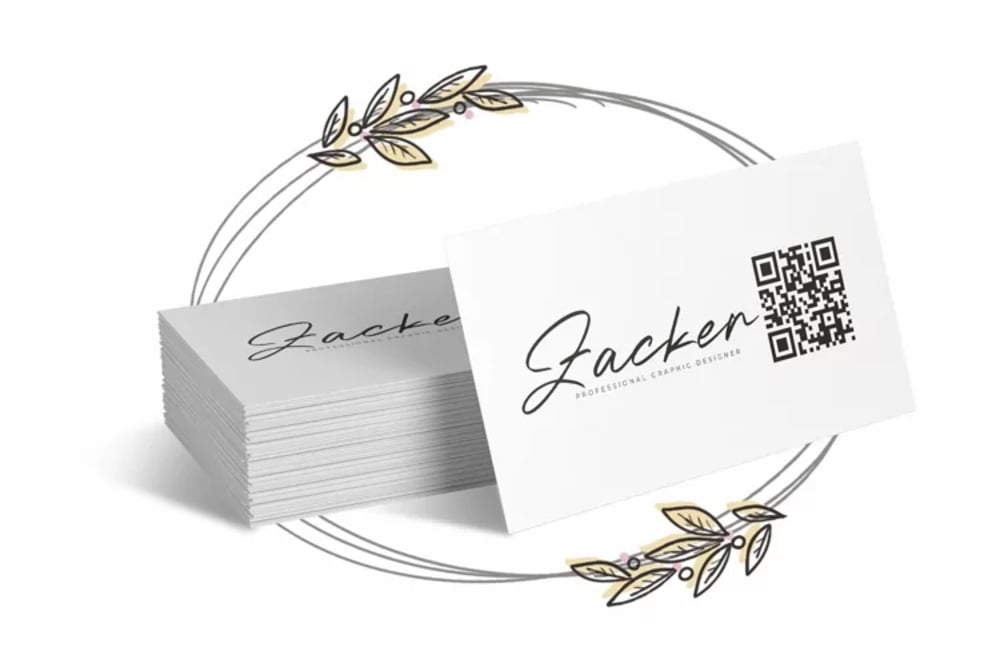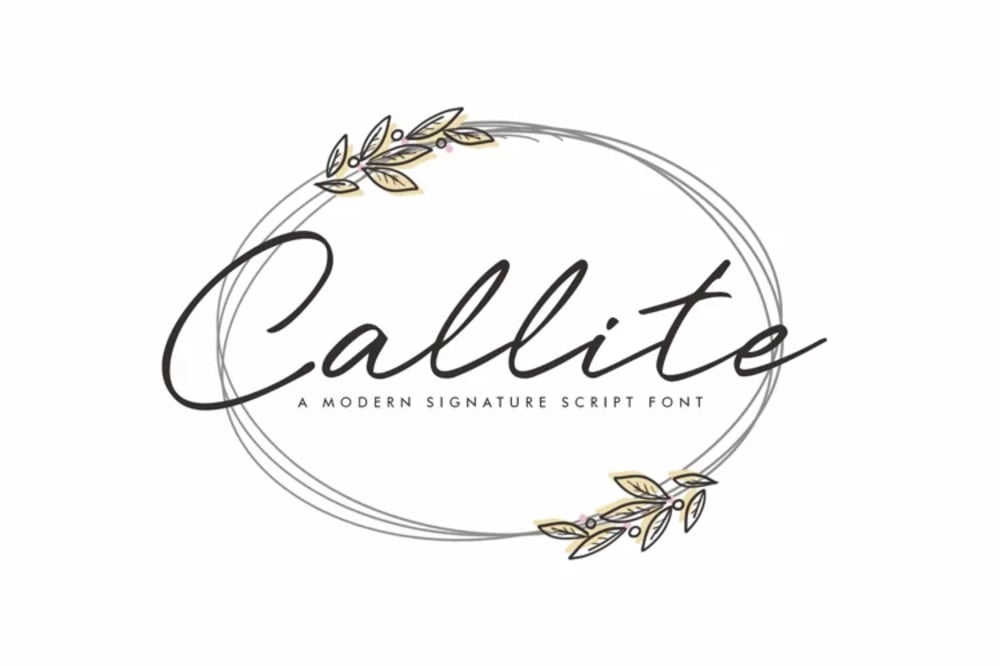
Callite Font
Callite is an elegant, modern serif font that balances sophistication with bold individuality. Its clean lines, subtle curves, and sharp serifs make it perfect for premium branding, editorial design, and luxury projects. With a timeless yet contemporary aesthetic, Callite exudes confidence and versatility, adding a touch of refined sensuality to any creative endeavor. Ideal for creating striking headlines and captivating logos.